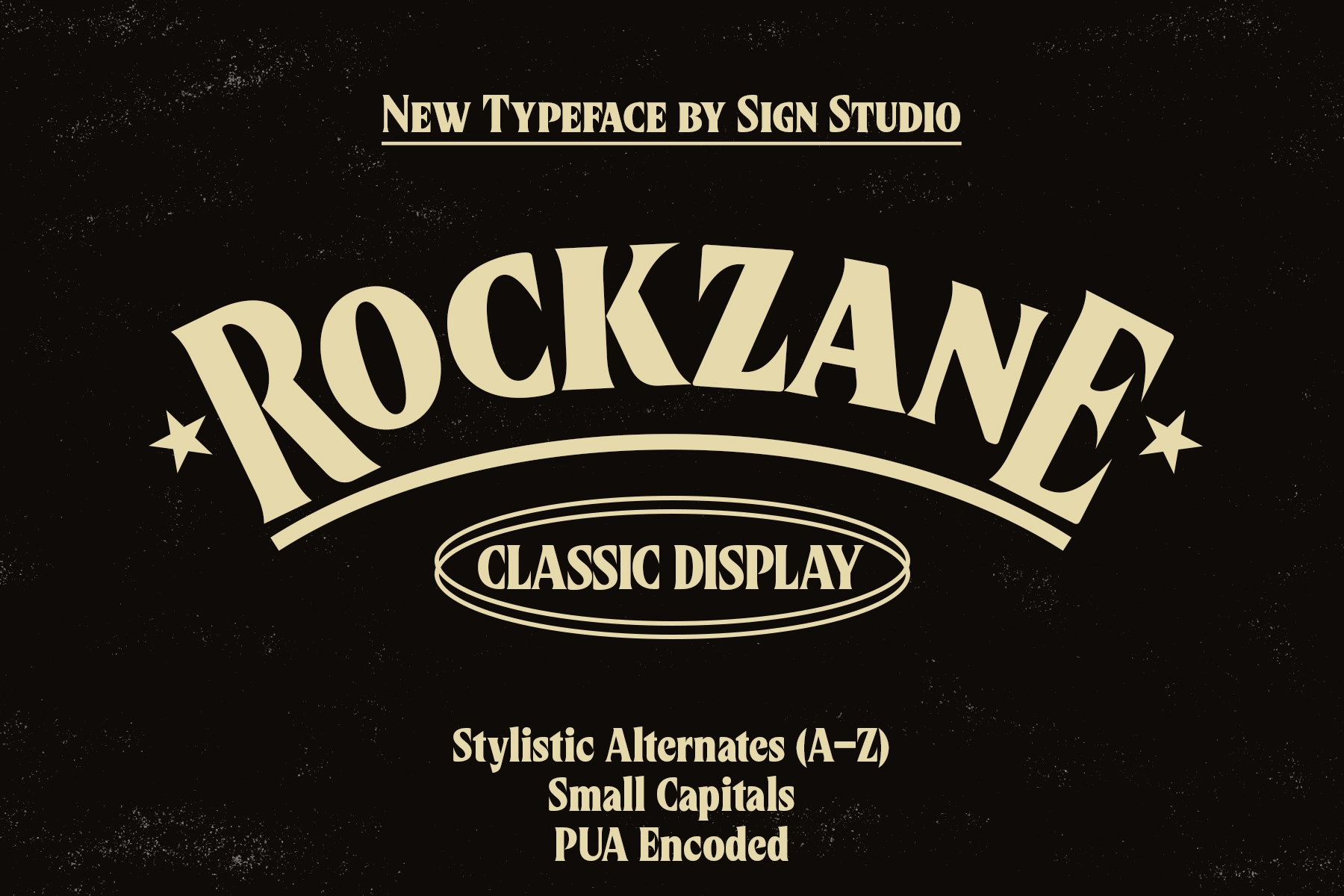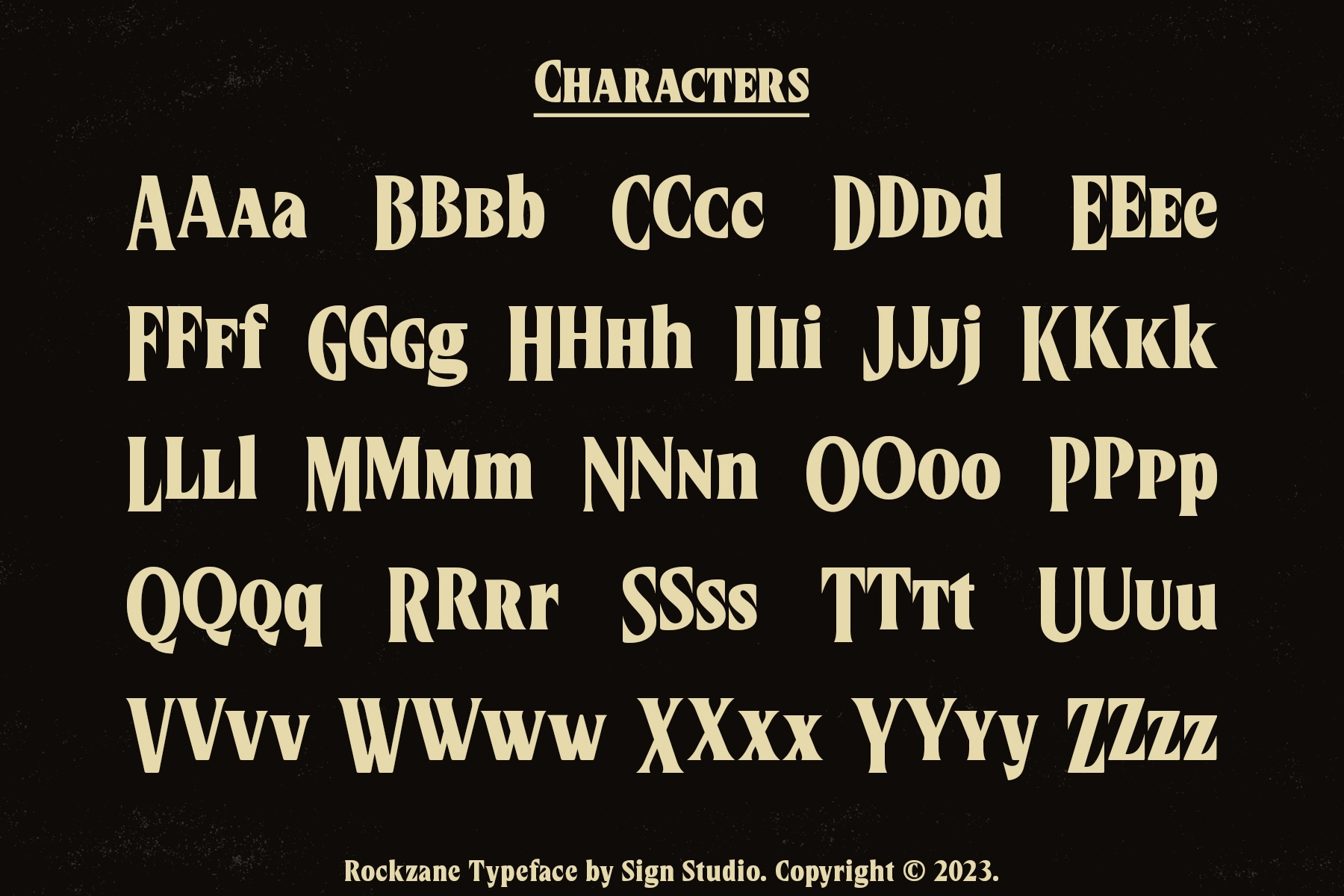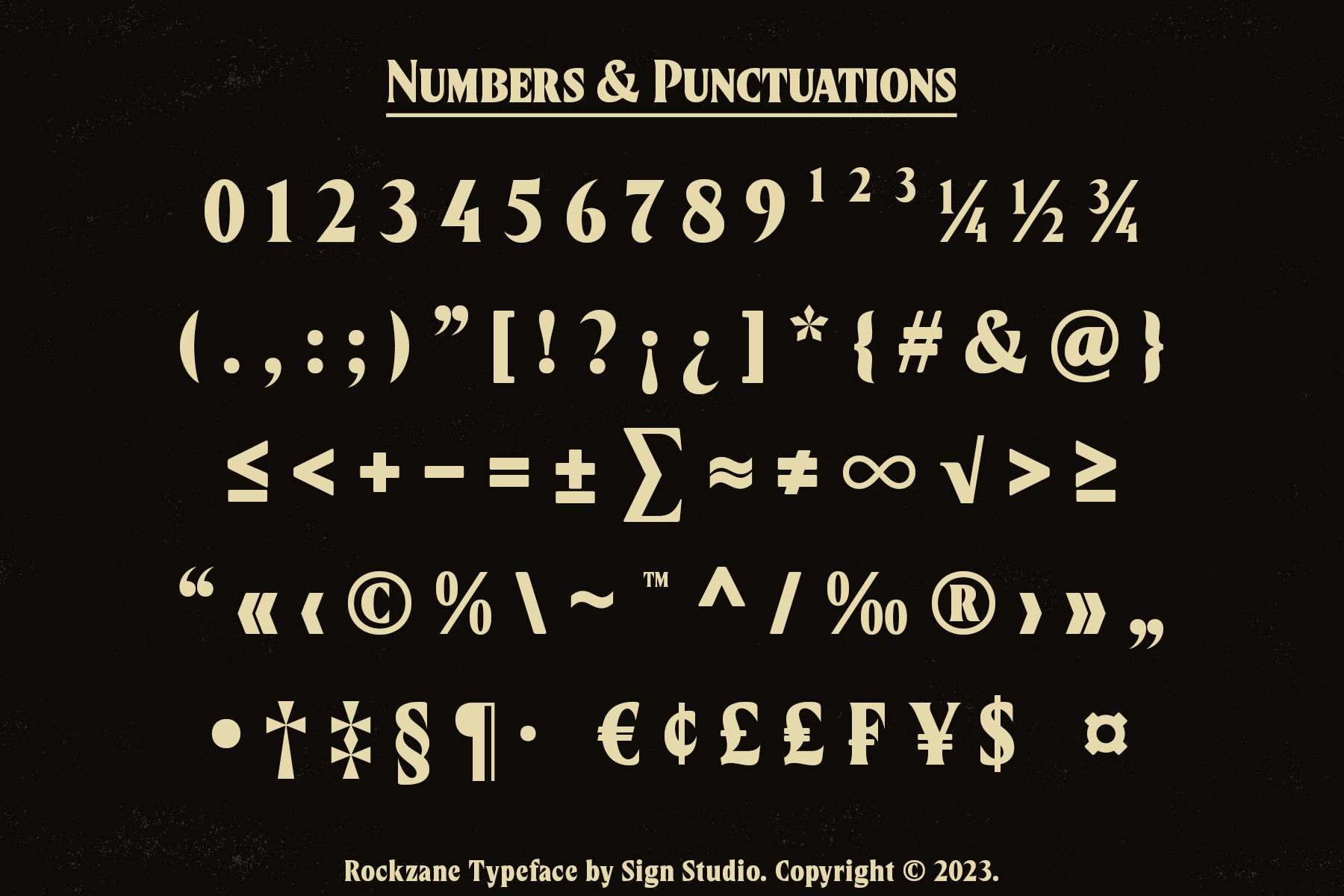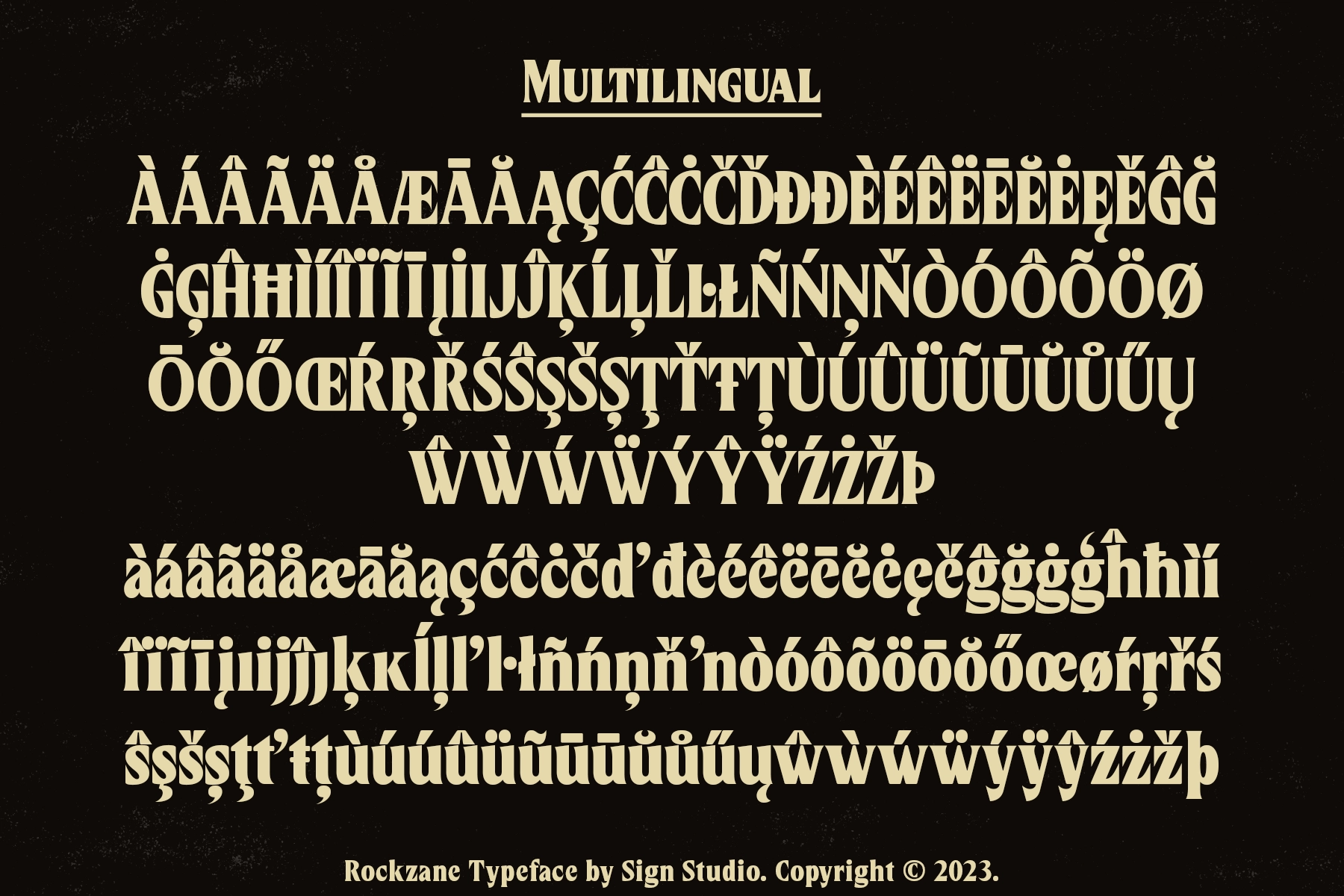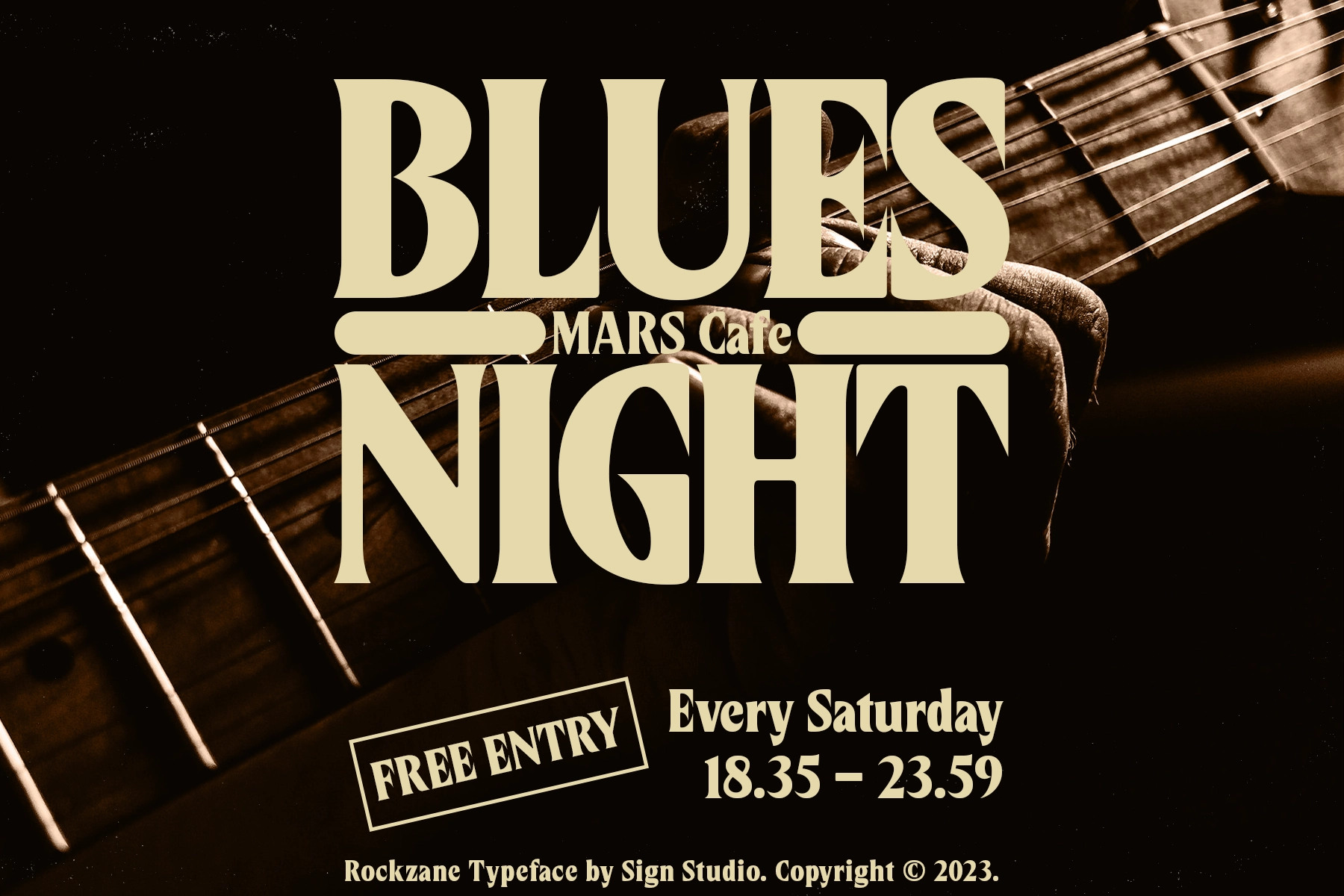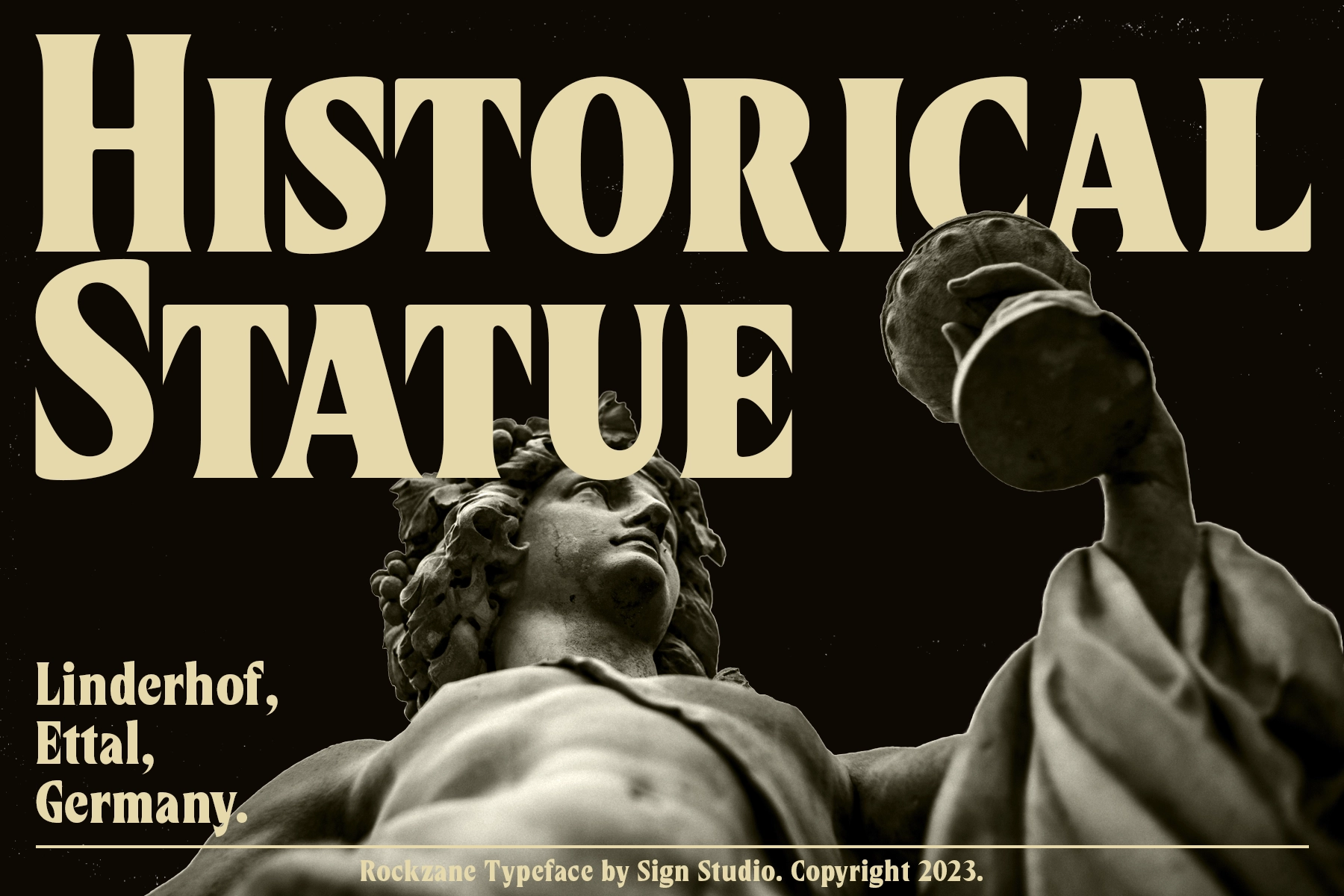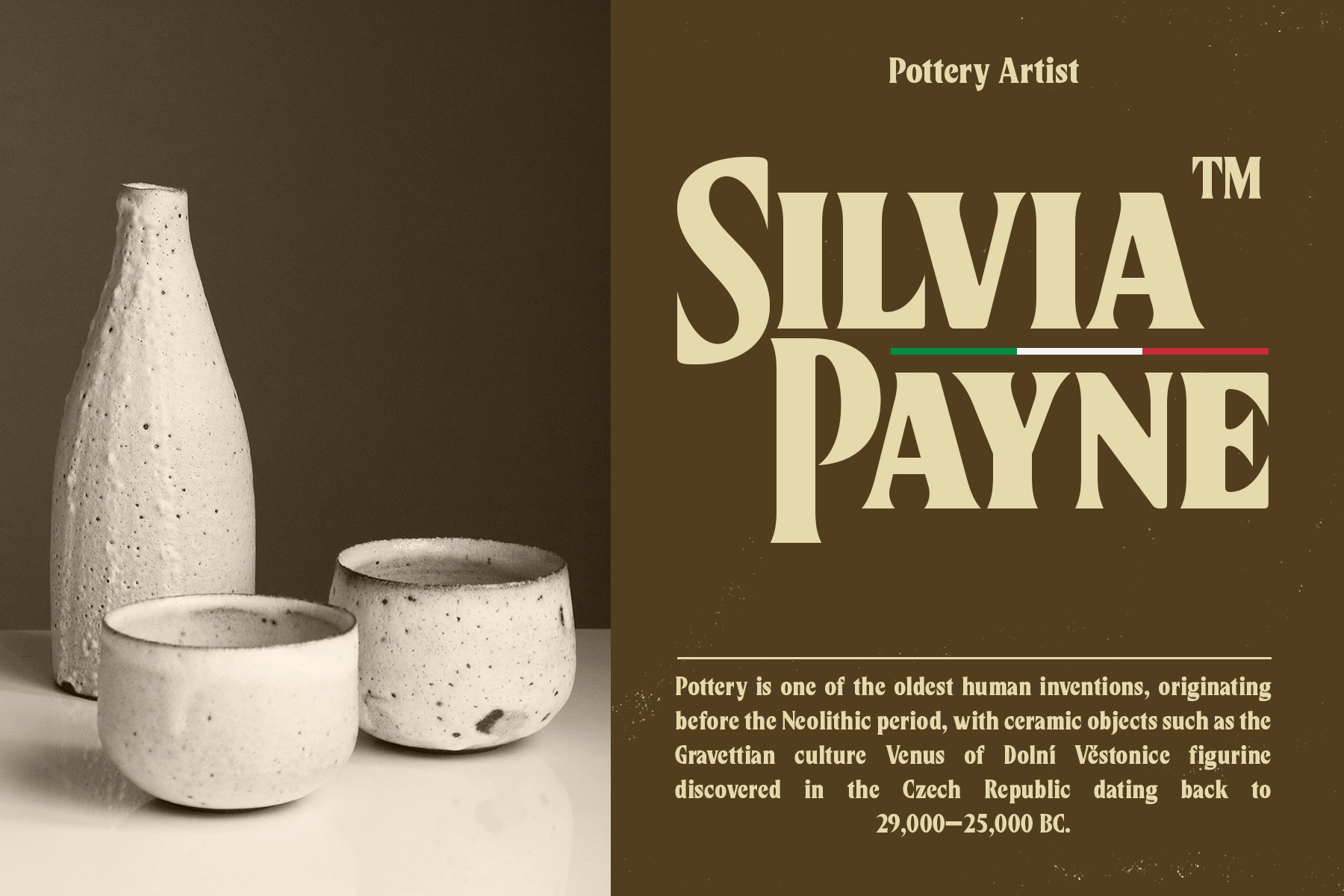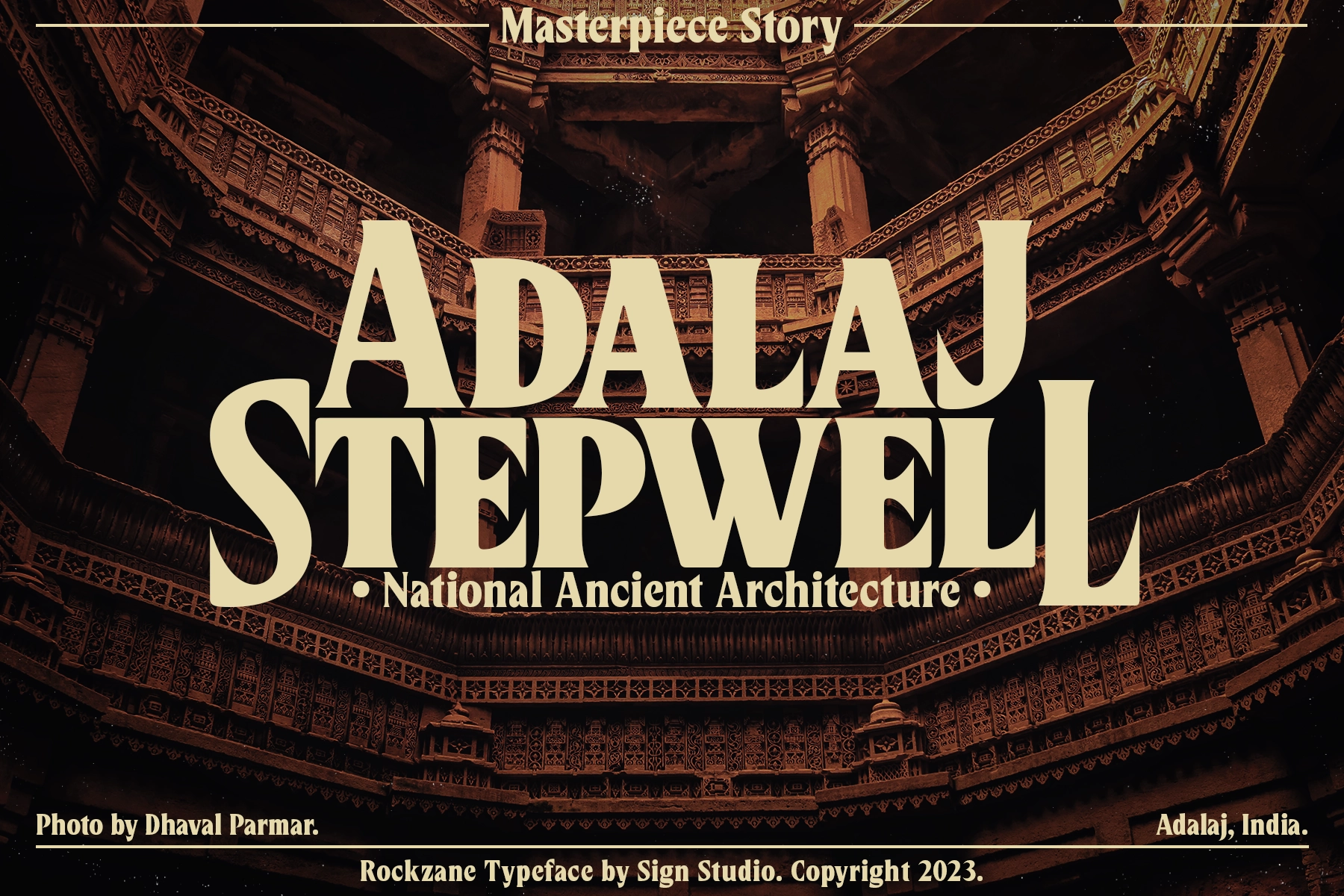
Rockzane — Vintage Display Serif Font
Rockzane — Vintage Display Serif Font is a bold display typeface inspired by classic serif traditions , designed to deliver a strong and timeless visual impact. Its sharp serifs, solid structure, and confident proportions create a striking presence while maintaining clarity at large sizes.
Blending vintage aesthetics with modern versatility, Rockzane works seamlessly across branding, editorial layouts, and promotional design. It brings character and elegance to headlines, logos, and packaging, making every composition feel distinctive and refined.
• Uppercase & Lowercase Characters
• Numerals & Punctuation
• Stylistic Alternates (Uppercase)
• Small Caps
• PUA Encoded